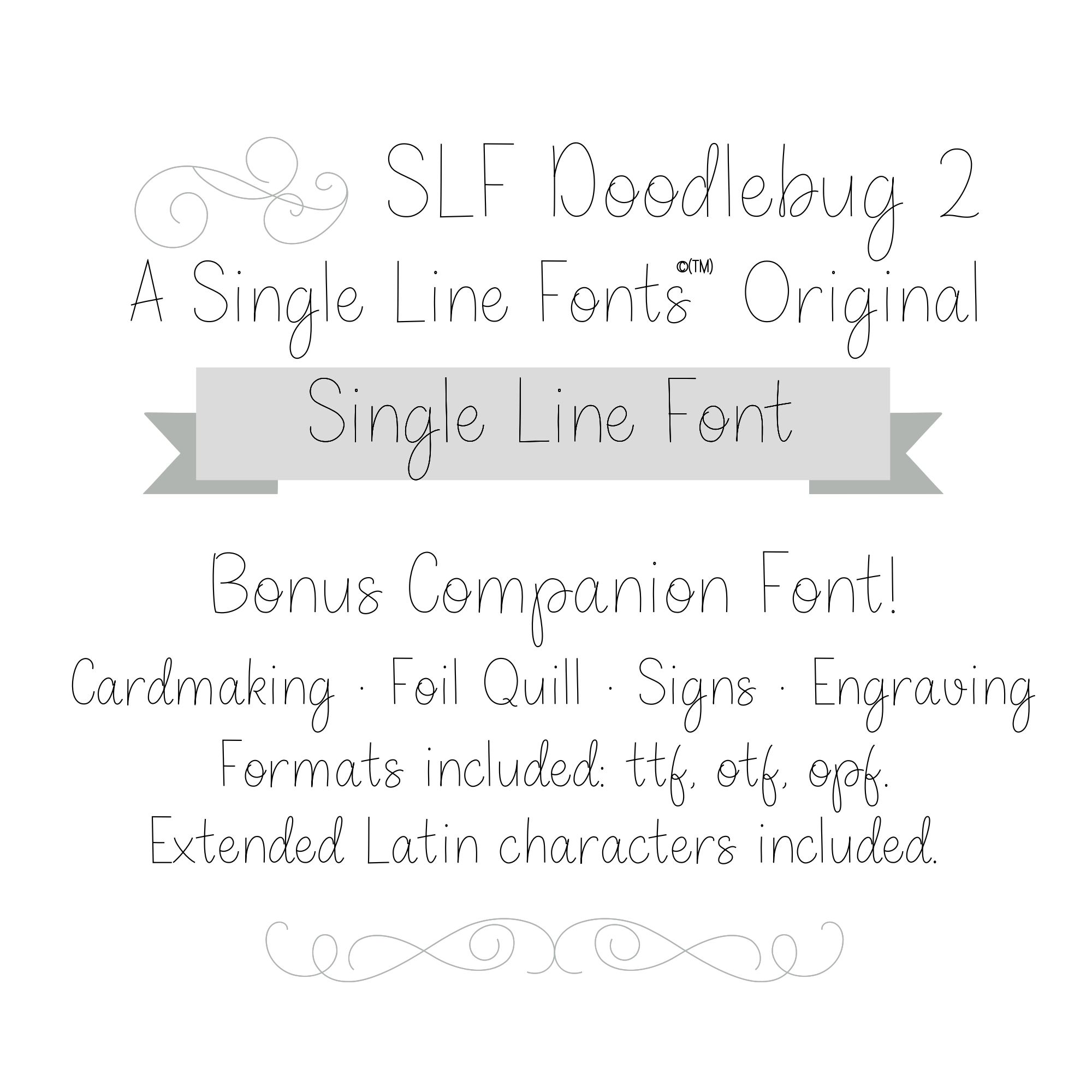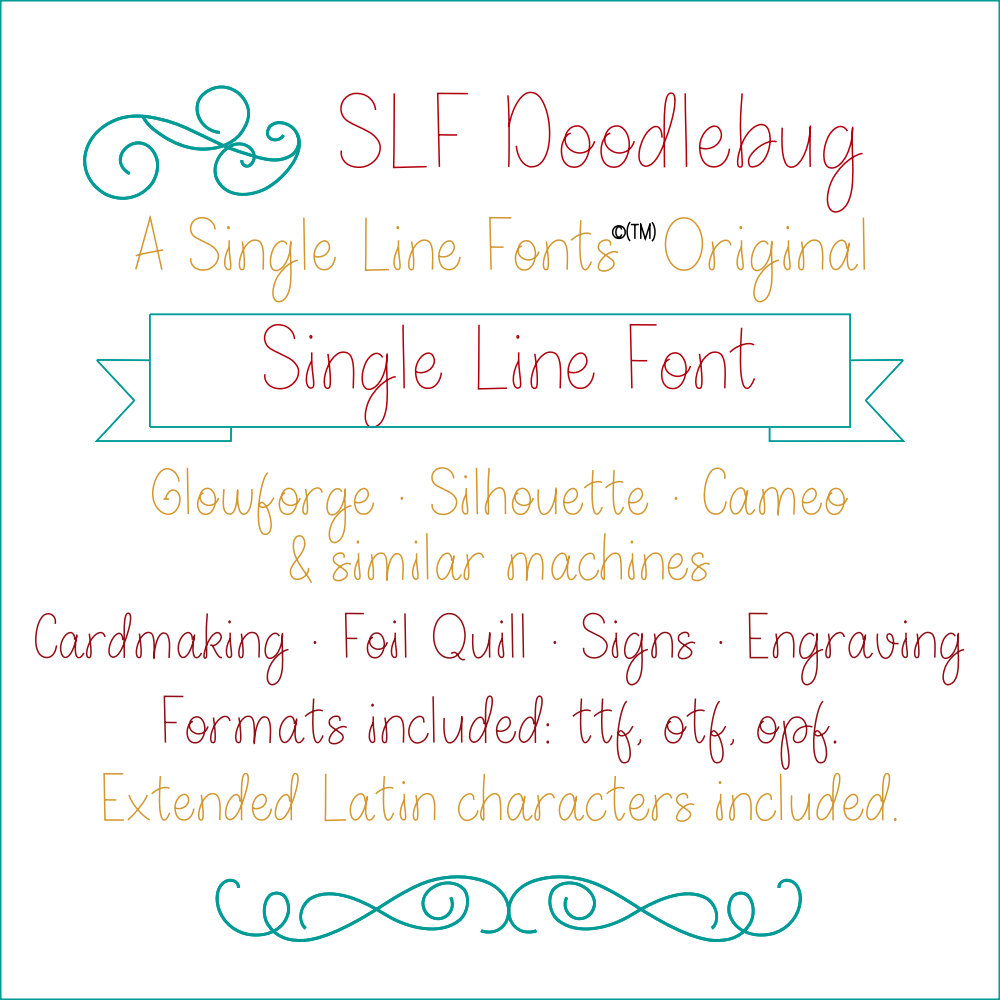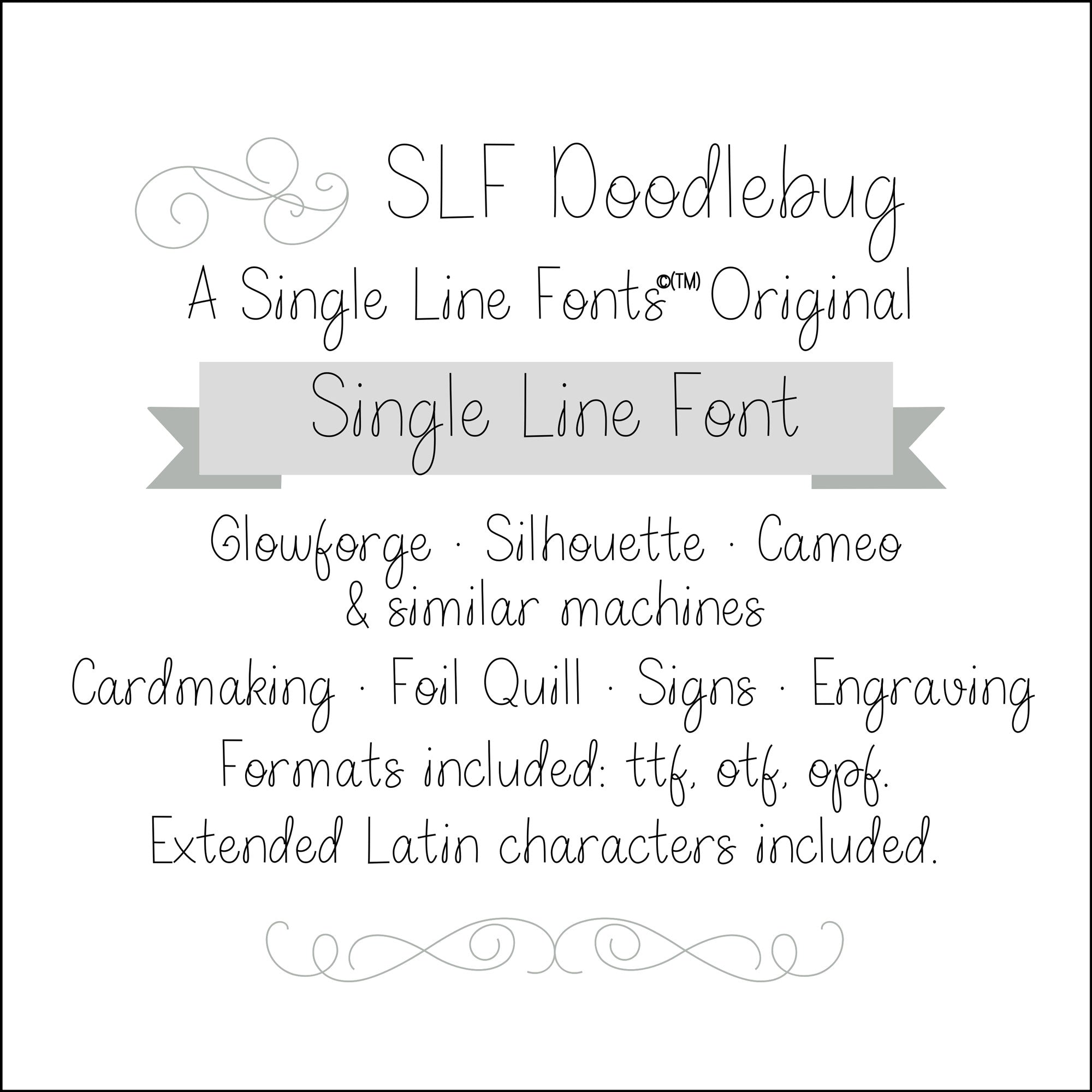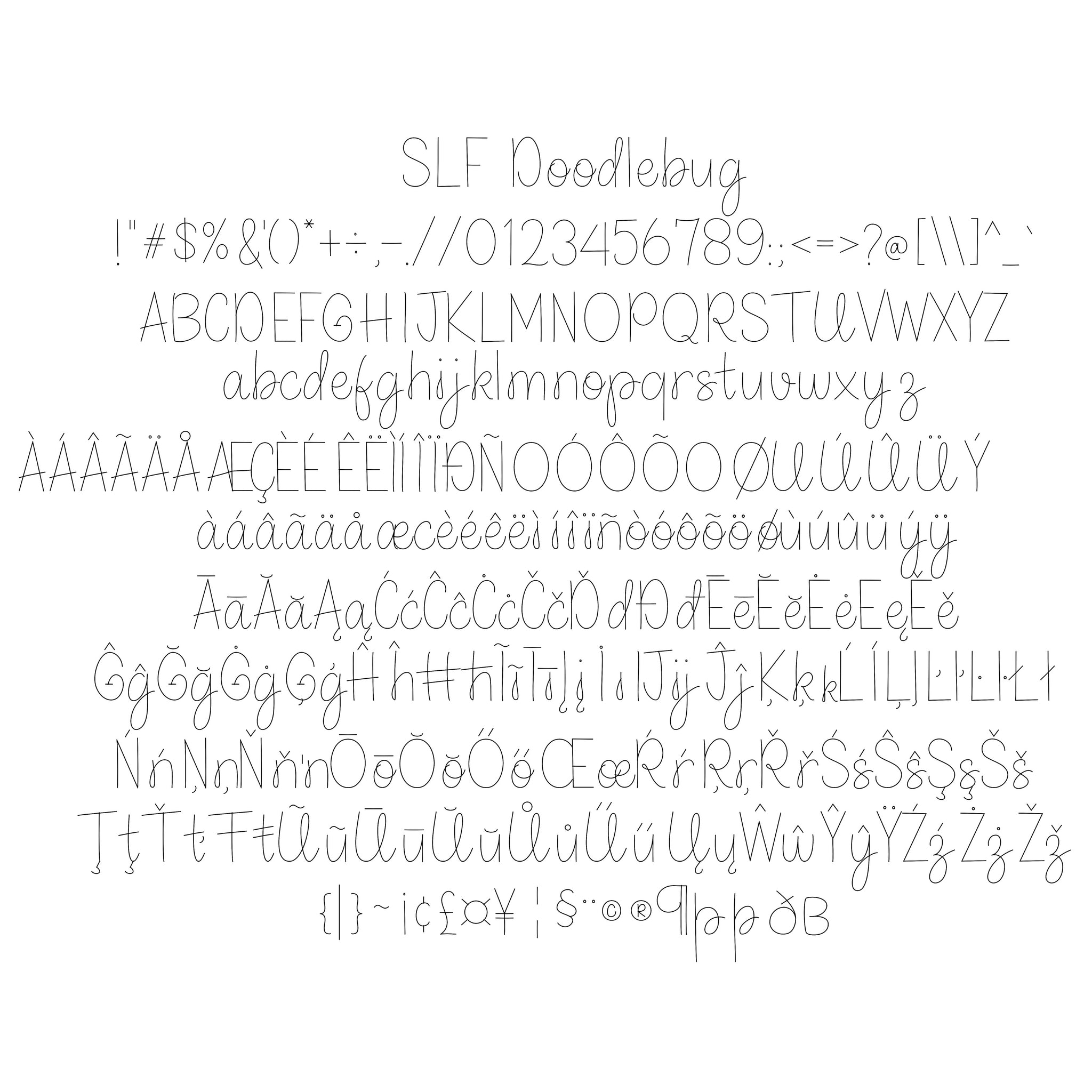
SLF Doodlebug 2 is a simplified versin of SLF Doodlebug single line fonts for scoring engraving glowforge silhouette pen tool sketch pen
Single Line Font "SLF Doodlebug" PLUS Bonus Font!
Introducing SLF Doodlebug, your go-to font for adding a whimsical touch to all your spring projects! With extended Latin characters, this font is designed to bring a unique flair to your cards, signs, and more.
As a bonus, I'm including SLF Doodlebug 2, featuring simplified versions of some letters. Take a peek at the first two graphics to see the differences!